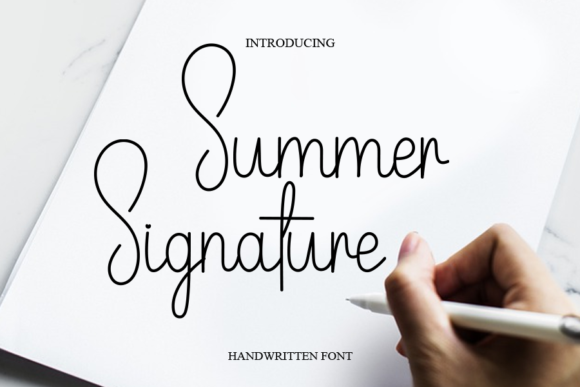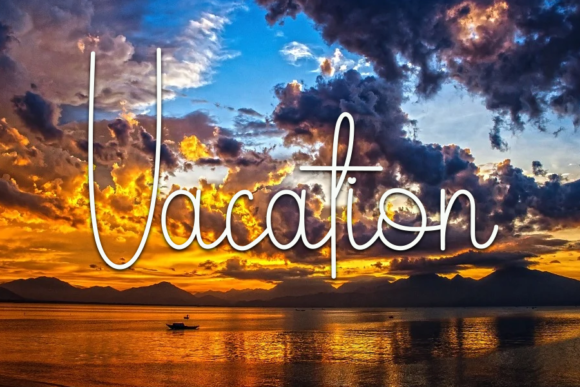
About Summer Signature Font
“Summer Signature” is a delightful handwritten font that combines a modern aesthetic with a touch of whimsy. With its delicate strokes and contemporary style, this font has the power to transport your designs into a realm of magic and imagination.
The font’s unique and artistic letterforms make it a perfect choice for projects that aim to evoke a sense of wonder and enchantment. Whether used for invitations, greeting cards, or any creative endeavor that calls for a hint of charm, “Summer Signature” can infuse a sense of joy and captivation.
In terms of branding, “Summer Signature” can be a wonderful choice for businesses seeking to convey a fresh and artistic image. It can be used for logos, packaging, and promotional materials to create a distinct visual identity that resonates with audiences looking for something unique and alluring.
For digital designs, “Summer Signature” can be used to enhance social media graphics, digital artwork, and websites. Its modern yet whimsical style can help designs stand out and create an immediate connection with viewers.
In the realm of wedding and event design, “Summer Signature” can add a touch of elegance and romance. Whether incorporated into wedding invitations, save-the-date cards, or event programs, this font can set a dreamy and memorable tone for special occasions.
Overall, “Summer Signature” is a font that invites you to infuse your projects with a sense of magic and whimsy. Its delicate and modern characteristics make it a versatile choice for a variety of applications, and it’s sure to enchant both creators and audiences alike.